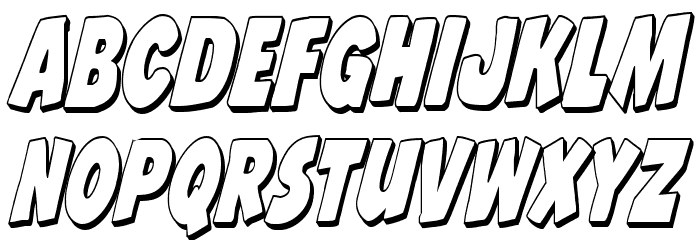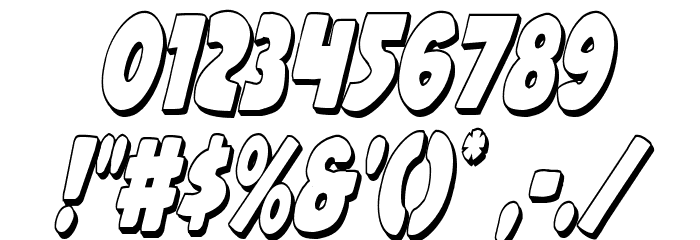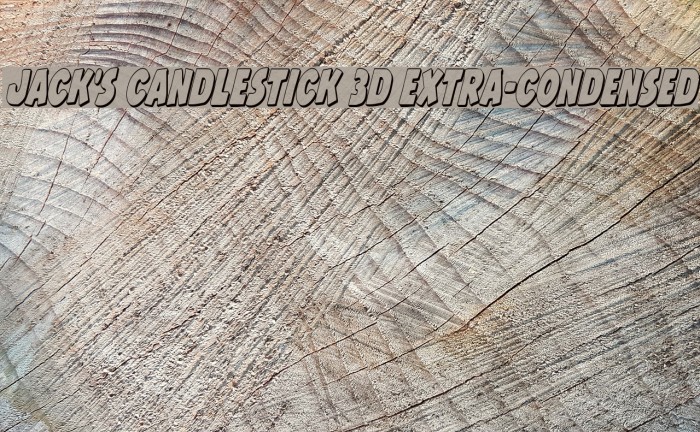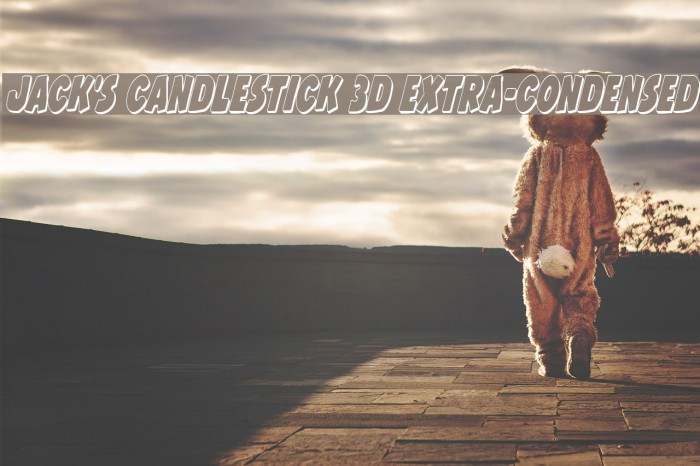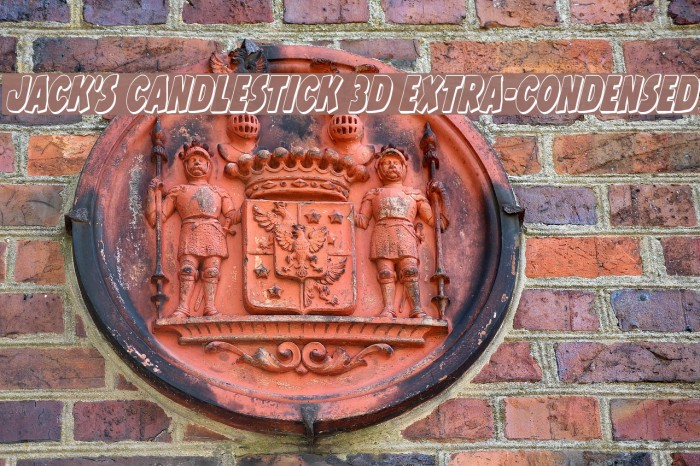
Jack's Candlestick 3D Extra-condensed Font
This font features a bold, three-dimensional style with a strong, impactful presence. The letters are extra-condensed, giving them a compact appearance while maintaining legibility. The 3D effect is achieved through a shadow-like outline that adds depth and dimension. The characters have a playful yet assertive look, making them suitable for attention-grabbing designs. The uppercase and lowercase letters are consistent in style, with rounded edges and a smooth finish. Numbers and special characters follow the same design principles, ensuring a cohesive look across all text elements.
A bold, 3D extra-condensed font with a playful and impactful style.
- Proposed Projects: Ideal for posters, headlines, logos, and any design requiring a bold statement.